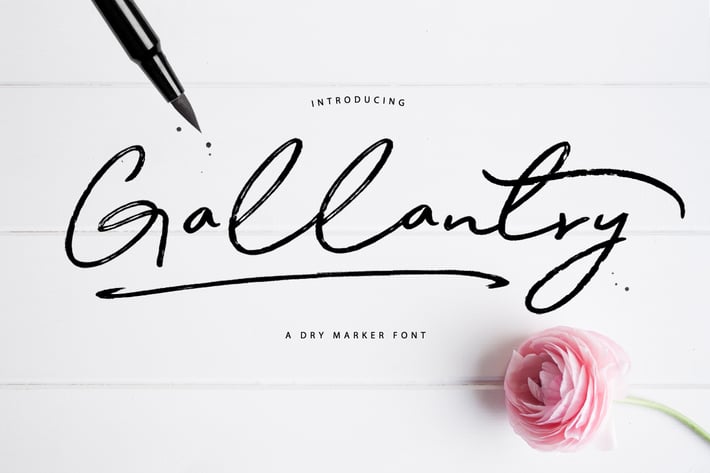
Gallantry Dry Marker Font
Gallantry is a dry marker font made with lots of love and extras! Its hand drawn forms, texture and alternates makes this a perfect font for any project that requires a formal or informal look.
And it features some beautiful swirly "ts" alternates that makes this font unique.